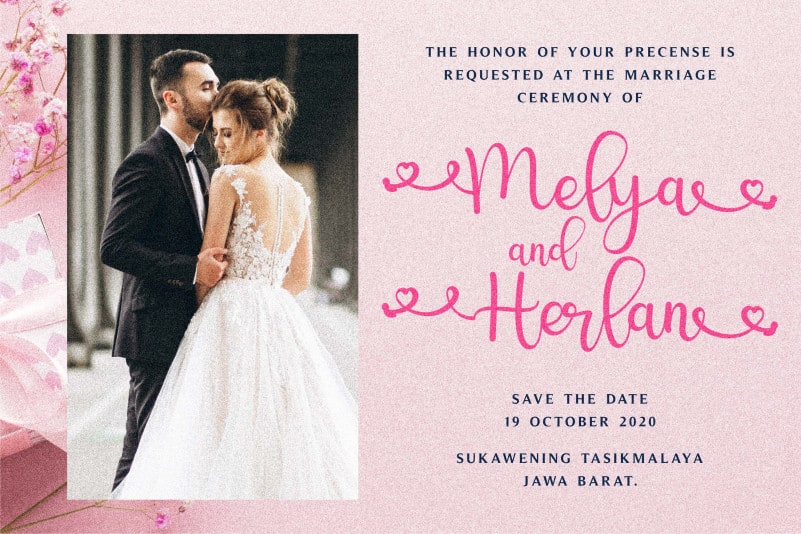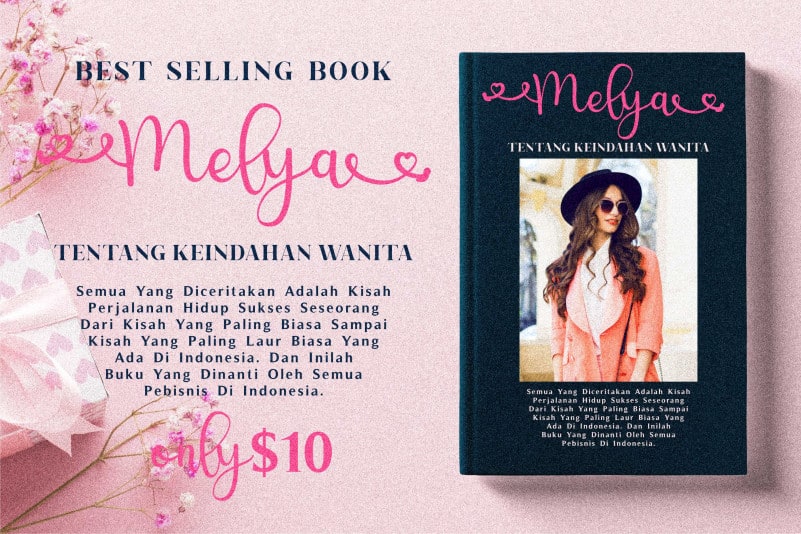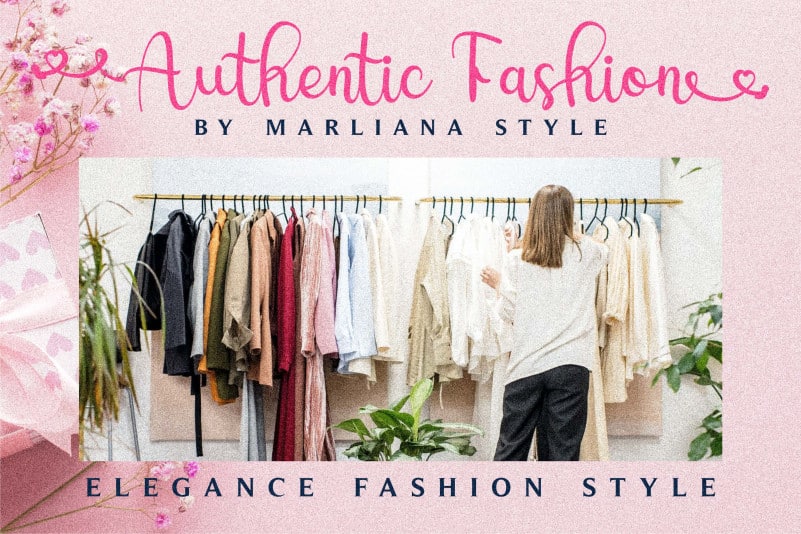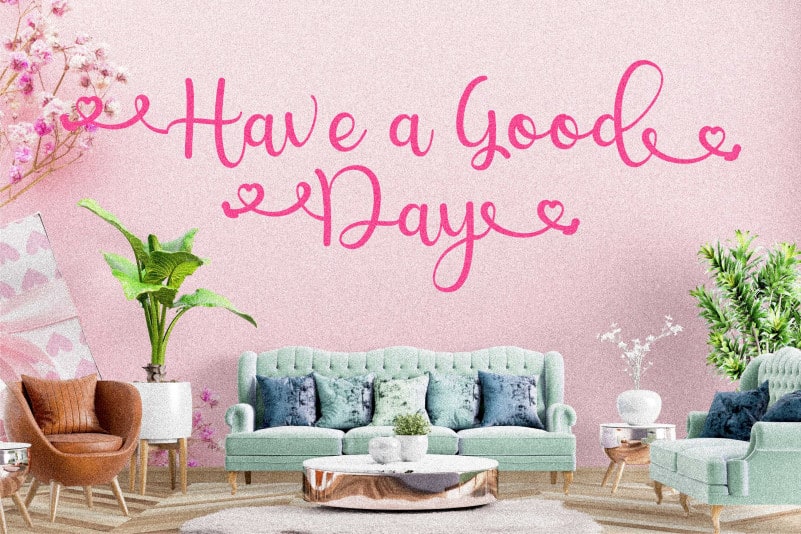
Melya Calligraphy Font
Melya Calligraphy Font is a cute handwritten font. This font is suitable for a wide variety of projects such as logos, branding projects, homeware designs, product packaging, mugs, quotes, posters, shopping bags, t-shirts, book covers, name card, invitation cards, greeting cards, label, photography, watermark, special events, and all your other lovely projects that need a beautiful touch.
This font is PUA encoded which means you can access all of the glyphs and swashes with ease!